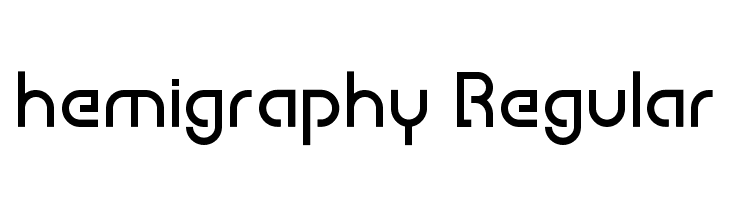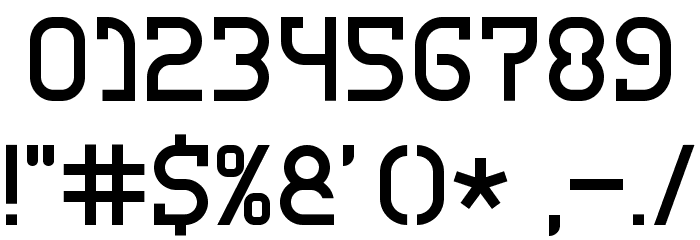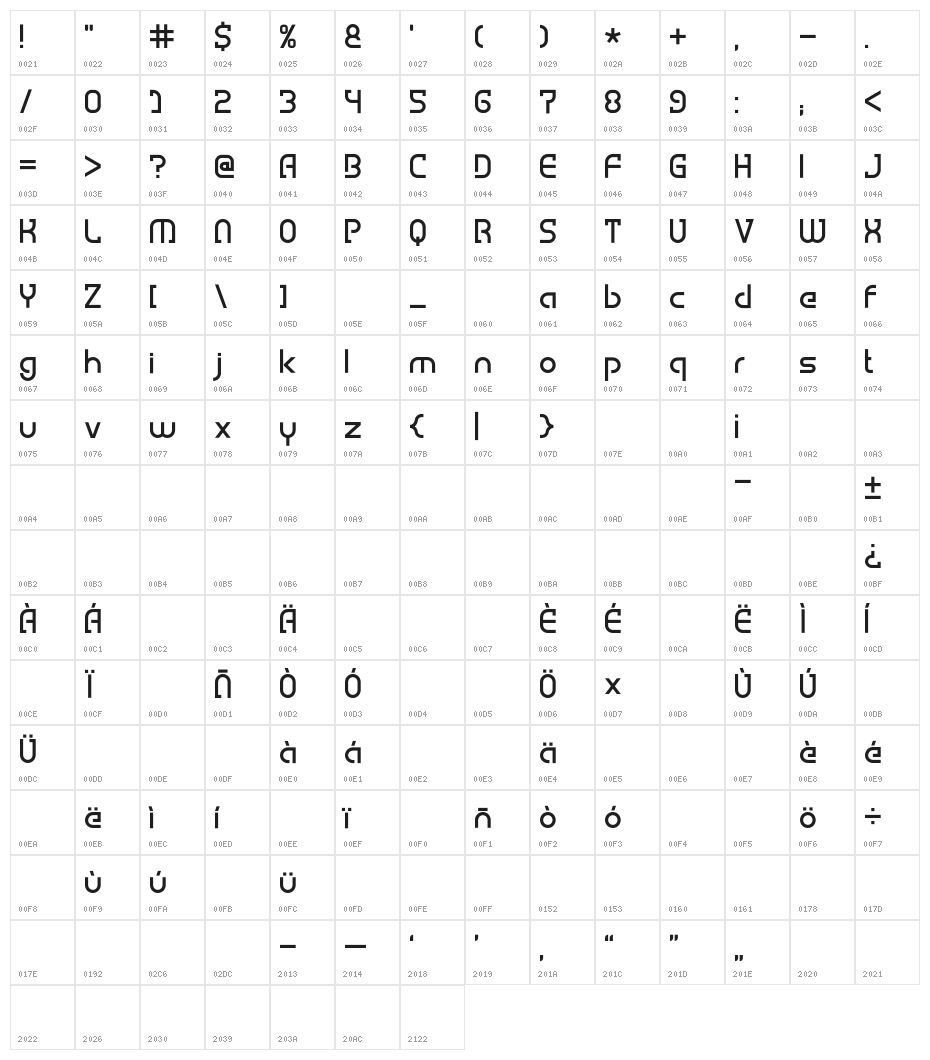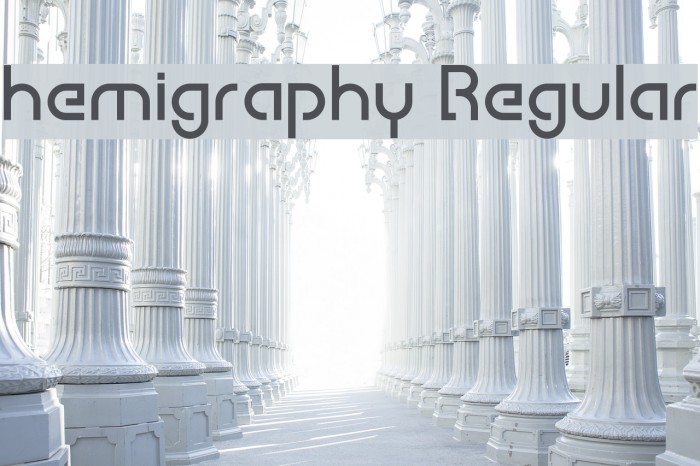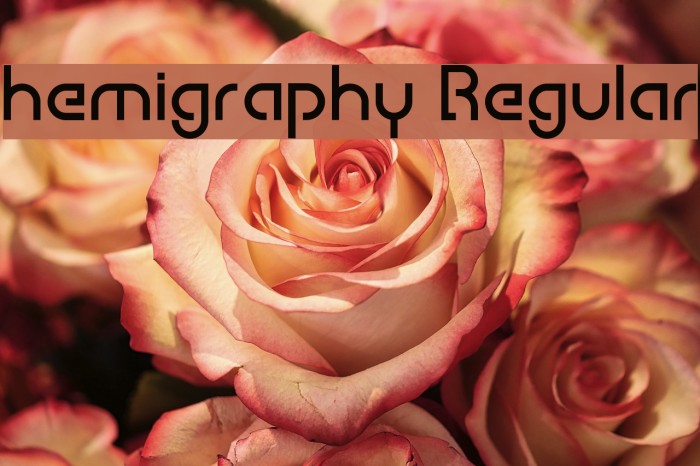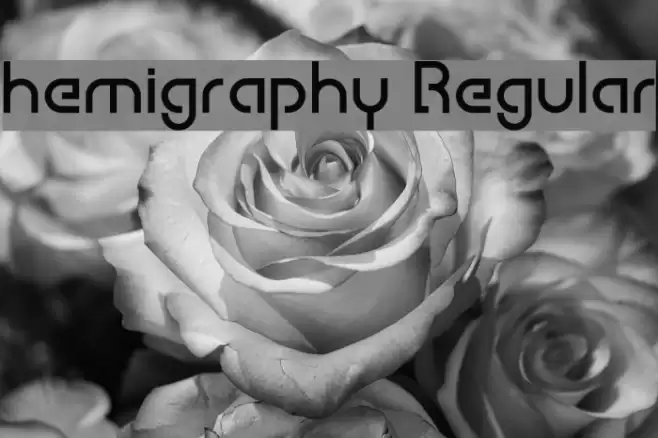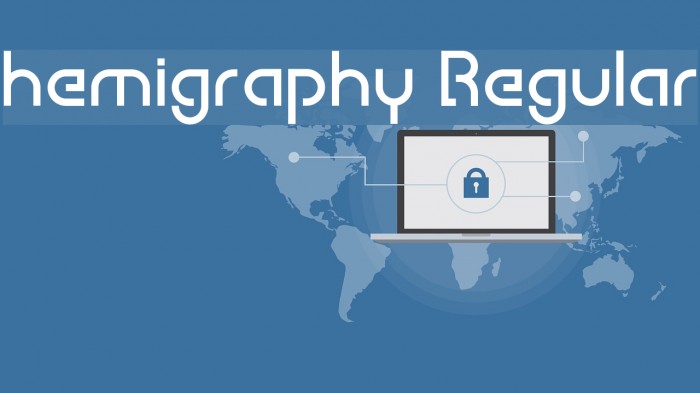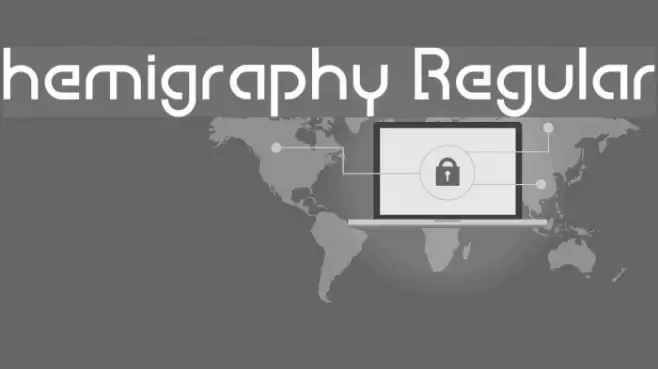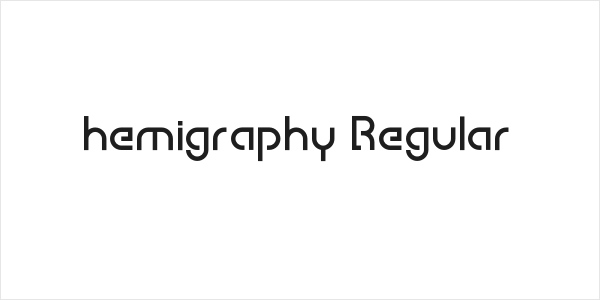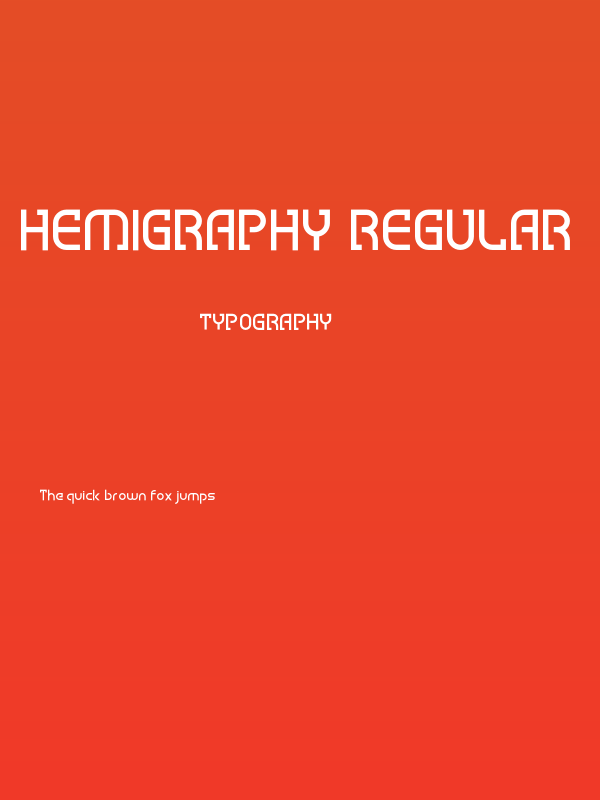
hemigraphy Regular Font
hemigraphy Regular Description
This font features a modern and geometric design with clean, rounded edges and a uniform stroke width. The characters are well-balanced, offering a futuristic and sleek appearance. The uppercase letters are distinct with a consistent height, while the lowercase letters maintain a similar style, enhancing readability. The numerals are clear and bold, making them suitable for various applications. Special characters are designed with the same geometric precision, ensuring a cohesive look across all text elements.
| Proposed Projects | Ideal for tech branding, modern web design, futuristic posters, and digital interfaces. |